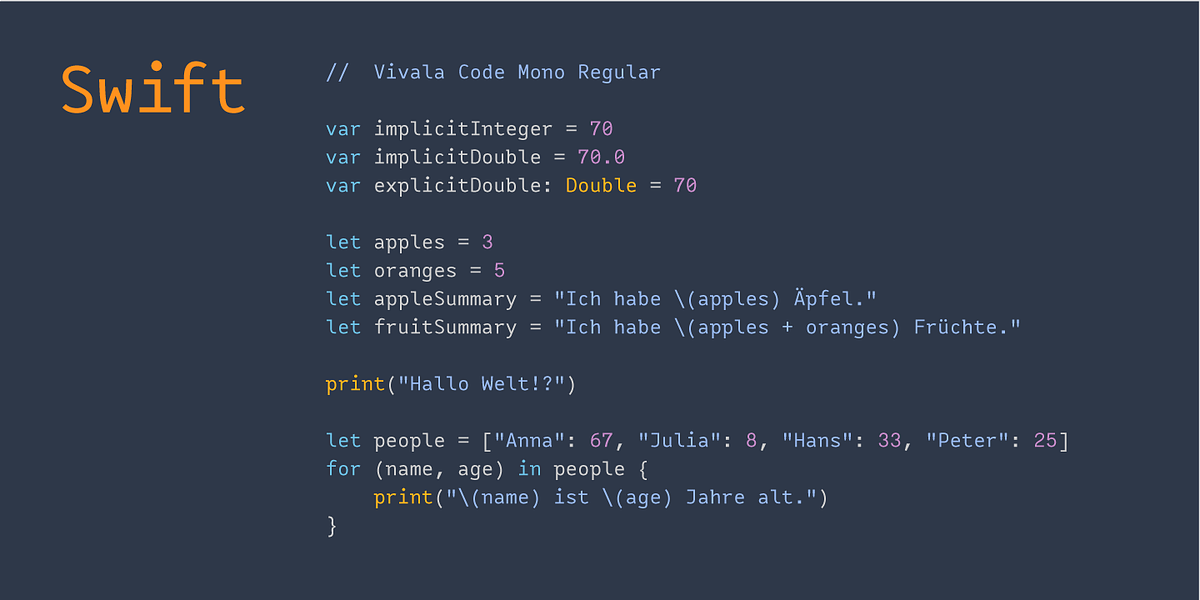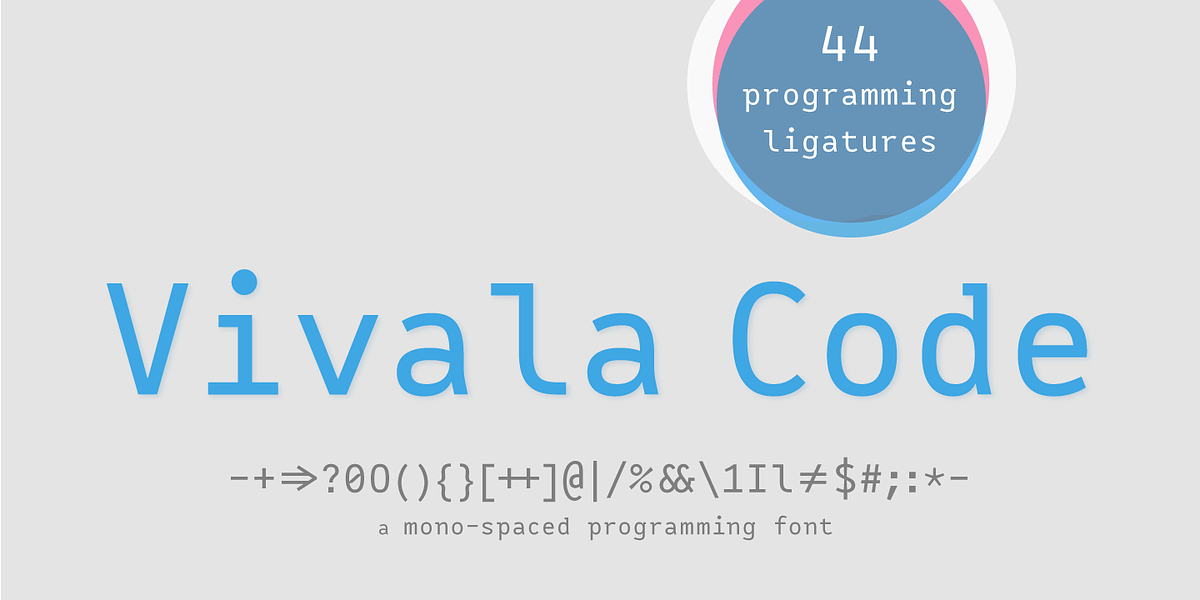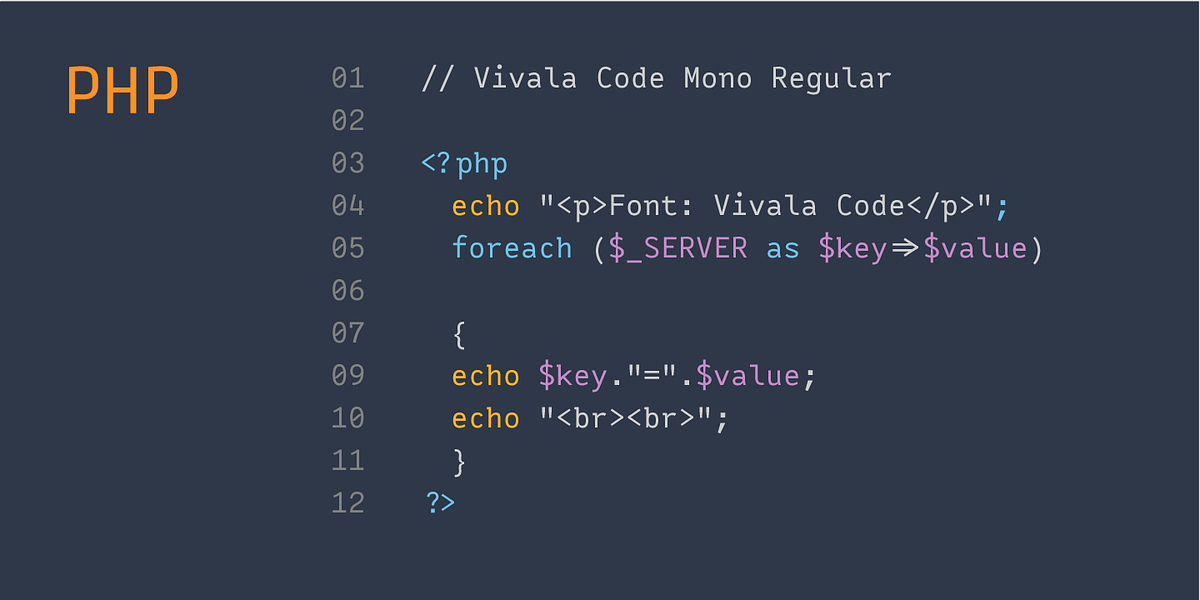
Vivala Code
Vivala Code is a monospaced sans serif typeface specifically designed for programming. It prioritizes readability with clear distinctions between similar characters and optimized punctuation suited for source code viewing. The font's design makes it suitable for use in light text on dark backgrounds at smaller sizes.